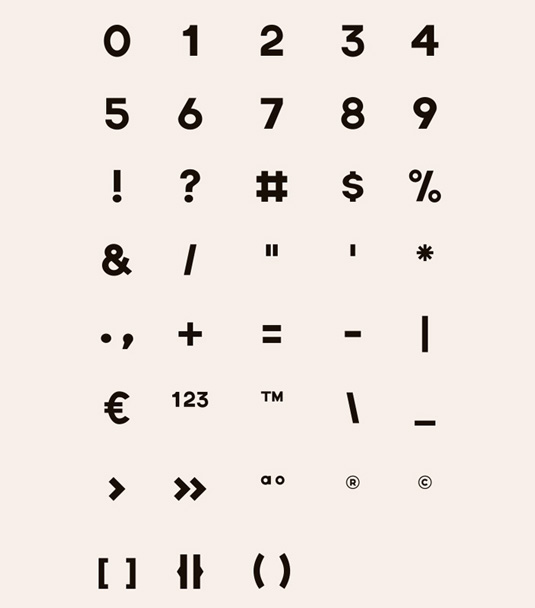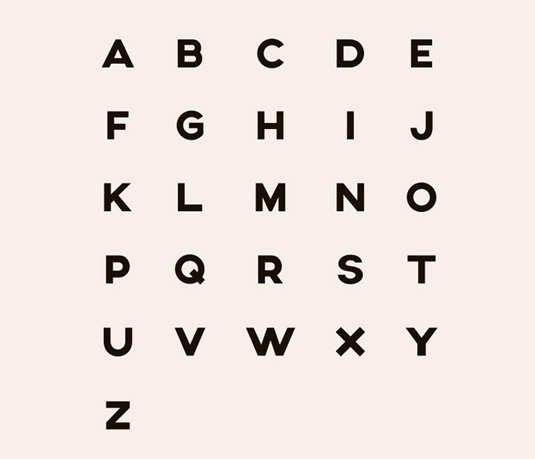
Font of the day: AXIS
AXIS by Jean M. Wojciechowski
Developed by New York-based graphic designer Jean M Wojciechowski, AXIS is a sans serif font, inspired by the geometry of the urban environment. The free download includes a full set of upper and lowercase letters, numbers and special characters.